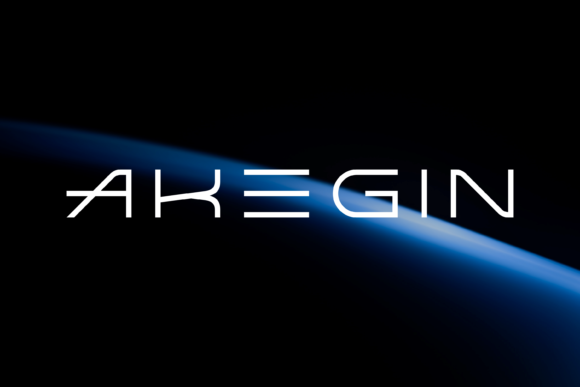
Akegin: A Versatile Font for Creative and Professional Projects
If you're looking for a font that brings a modern, casual feel to your designs, Akegin might be exactly what you need. This display font is crafted with style and functionality in mind, making it ideal for a wide range of creative and commercial applications. Whether you're working on a logo, designing t-shirts, or creating digital content, Akegin can add a unique touch that stands out.
What sets Akegin apart is its balance between elegance and approachability. It’s not too formal, nor is it overly playful—it sits comfortably in the middle, offering a fresh look that feels both contemporary and familiar. This makes it especially useful for projects where you want to convey a sense of creativity without sacrificing readability.
Real-World Applications for Akegin
Imagine you're a small business owner launching a new line of eco-friendly products. You want your brand to feel modern and trustworthy. Akegin could be the perfect choice for your logo, giving it a clean, professional appearance while still feeling friendly and accessible. It works well in both digital and print formats, so it's a great fit for everything from website headers to product packaging.
For someone involved in t-shirt design, Akegin can bring a casual yet stylish vibe to their work. Whether it's a band name, a motivational quote, or a simple graphic, the font adds personality without overwhelming the design. It pairs well with bold colors and minimalist layouts, making it a go-to option for many designers in the fashion industry.
Bloggers and content creators also find Akegin useful. If you're writing a post about lifestyle trends or personal development, using Akegin for headings or section titles can make your content more visually engaging. It helps break up text and draw attention to key points without being distracting.
How Different Users Can Benefit
Entrepreneurs often face the challenge of building a strong brand identity quickly. Akegin offers a solution by providing a font that’s easy to use and adaptable across different platforms. For instance, a startup founder might use Akegin for their company’s social media handles, website banners, and even email newsletters. Its versatility means they don’t have to switch fonts frequently, which helps maintain a cohesive brand image.
Teachers and educators can also benefit from Akegin when creating visual materials for students. Whether it's a presentation, a handout, or a classroom poster, the font’s clarity and style can make educational content more appealing. It’s especially useful for younger audiences who respond well to visually engaging materials.
Freelancers in the design industry may appreciate Akegin for its flexibility. They can use it in client projects ranging from branding to web design, knowing that it will look good in various contexts. This reduces the time spent searching for the right font and allows them to focus more on the creative process.
Considerations Before Using Akegin
Before choosing Akegin, it’s important to consider the context in which it will be used. While it’s excellent for display purposes, it may not be the best choice for long blocks of text. In such cases, a more traditional serif or sans-serif font might be more readable. Always test the font in the specific setting you plan to use it in to ensure it meets your needs.
Finally, think about how Akegin aligns with your overall design aesthetic. While it’s a versatile font, it may not fit every style. If your project has a more traditional or minimalist tone, Akegin could stand out in an unintended way. Experimenting with different fonts and layouts can help you determine if Akegin is the right fit for your vision.
When to Choose Akegin Over Other Fonts
There are times when Akegin clearly outperforms other fonts. For example, if you’re designing a logo for a tech startup that wants to feel innovative but not too rigid, Akegin’s modern look can communicate that message effectively. It’s also a good choice for creative projects where a unique visual identity is important, such as album covers, book titles, or event flyers.
In contrast, if you’re working on something like a legal document, a textbook, or a corporate report, Akegin might not be the best option. These types of projects typically require a more formal and structured font to maintain professionalism and readability. However, for anything with a creative or casual angle, Akegin can be a valuable asset.
It’s also worth considering how Akegin performs in different languages. While it was likely designed with Latin characters in mind, its adaptability may vary depending on the script. If you’re working on multilingual content, it’s a good idea to test the font in those languages to ensure it looks consistent and clear.
Whether you're a designer, a business owner, or someone simply looking for a fresh look, Akegin offers a practical and stylish solution. With the right approach, it can help you stand out in a crowded market and create designs that resonate with your audience.